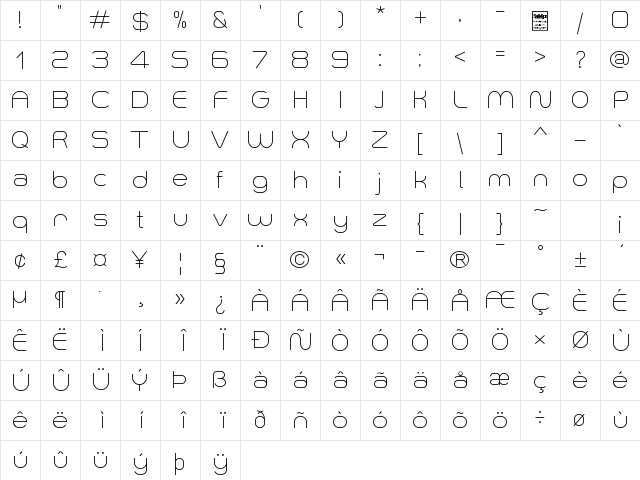
Smush Light is a composed and adaptable typeface that performs quietly and consistently across a wide range of design contexts. Its slender proportions lend an understated elegance to any composition.